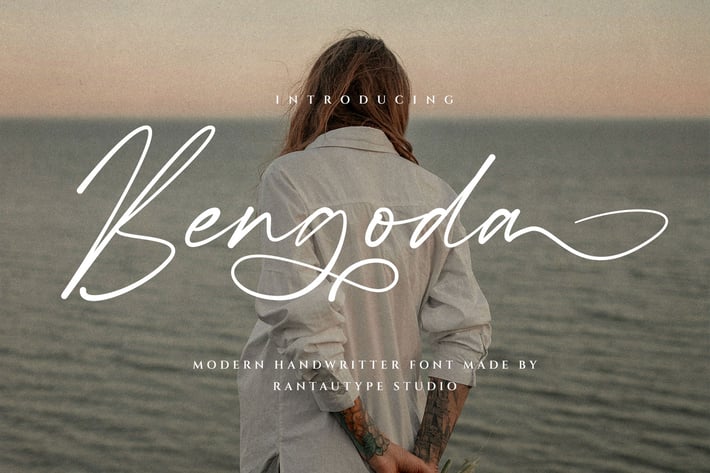
Bengoda Modern Handwritten Font
Bengoda is a modern handwritten font with stylish signature. Bengoda come with elegant flow look with perfect hand craft. We keep this font look elegant, fashionable, modern and eye catching.
Bengoda is a perfect choice for any creative endeavor, chic, lifestyle design such as logos, title, watermark on photography, cover, branding, display and magazine, wedding event, corporate brand, quotes, album cover, business card, business project, company branding and more project with handwritten taste.
Standar character A-Z and a-z
Ligature and alternate